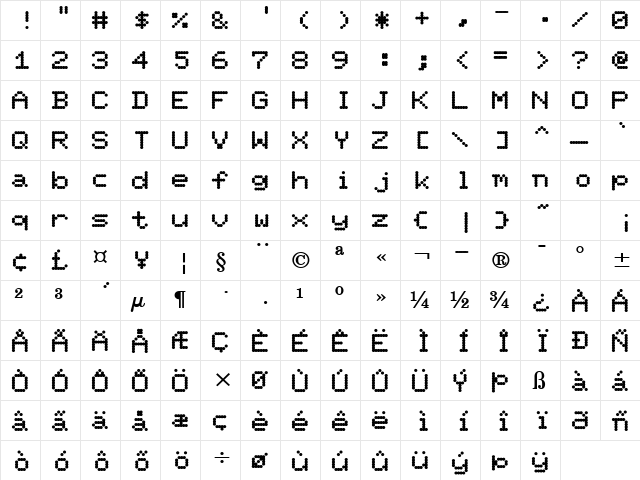
Ninepin Bold
Design Context for Ninepin Typeface
Ninepin is a composed and adaptable typeface that performs quietly and consistently across a wide range of design contexts. The heavy weight commands attention and anchors typographic hierarchies.